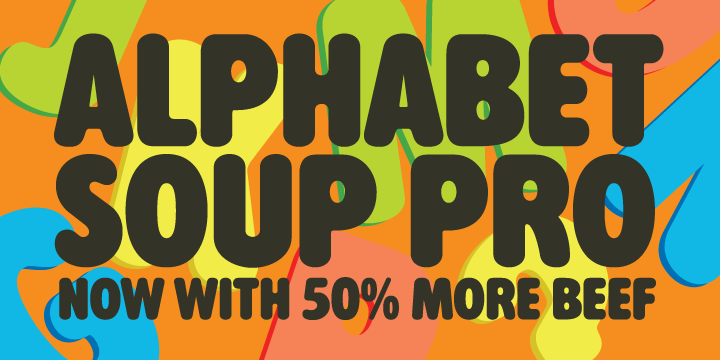
Steve Jackaman. In the early 1980’s, Steve worked at Typographic House in Boston, Massachusetts. At the time, ‘Typo’ House, as it was affectionately known, was the largest type house in New England. This font was designed and produced during his tenure. The design was so popular that it became available commercially through VGC, and was known as TH Alphabet Soup. Completely redrawn and remastered, Alphabet Soup Pro contains all the high-end features expected in a quality OpenType Pro font.